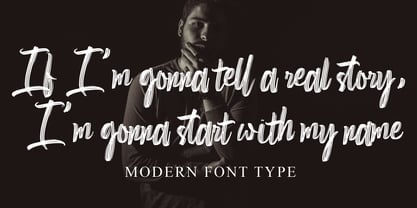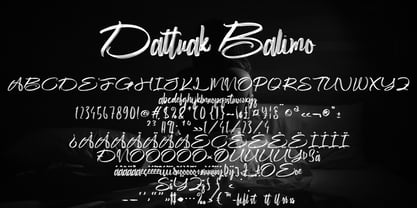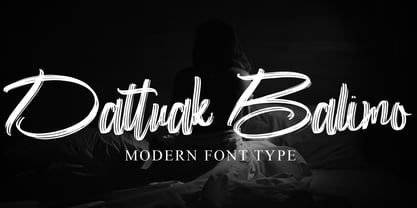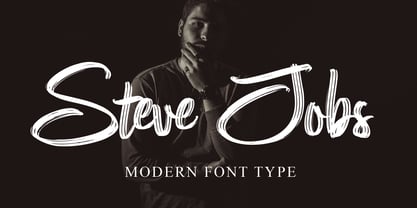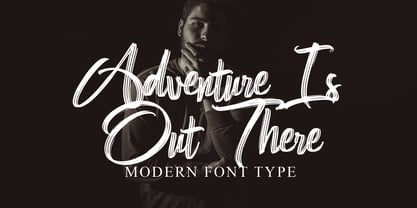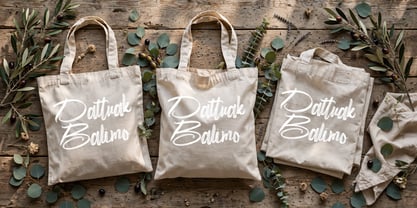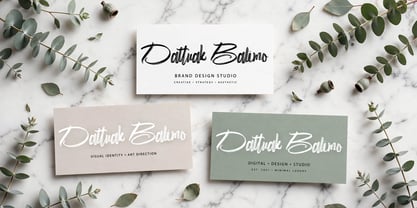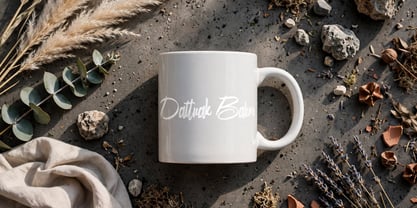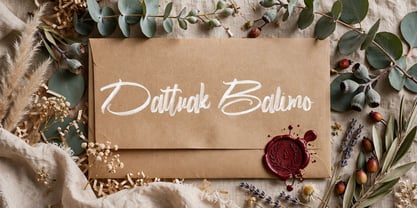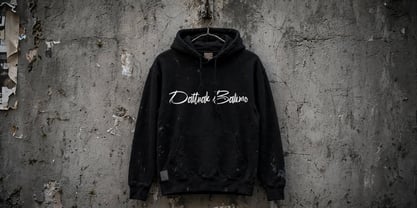
Dattuak Balimo
The Dattuak Balimo Font Family was designed by Dhoni Trihatmoko and published by Ayska. Dattuak Balimo contains 1 styles. More about this family
Immerse yourself in the bewitching sways of Dattuak Balimo, a trophy-grade font engagingly blending modern elegance with fluid, handwritten sophistication. Dattuak Balimo, meticulously hand-carved, emanates an unrivaled magnetism and refined allure, proving to be an invaluable companion in your digital design endeavours. Revel in its magnetic charm as it amplifies the appeal of your blog, injects a custom flair to your digital planner designs, stitches personal essence into your invitations, or articulates your affectionate expressions in custom-made greeting cards. Bask in the everlasting class and groundbreaking spirit of Dattuak Balimo as it transforms your treasured photo collections or custom home decor. With its powerful proficiency to effortlessly transmogrify simple digital canvases into exciting, eye-capturing marvels, Dattuak Balimo's captivating influence is unrivaled. Allow Dattuak Balimo to helm your creative ventures, orchestrating an indelible display of remarkable artistry. Surrender to the artistic enchantment of Dattuak Balimo, and watch your creative dreams evolve into unique, radiant realities.